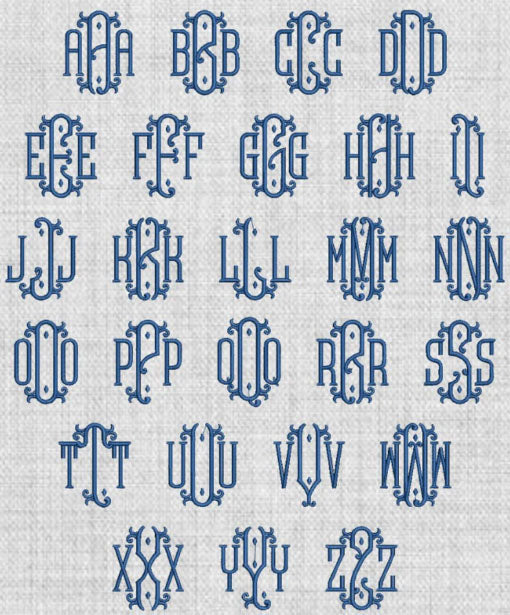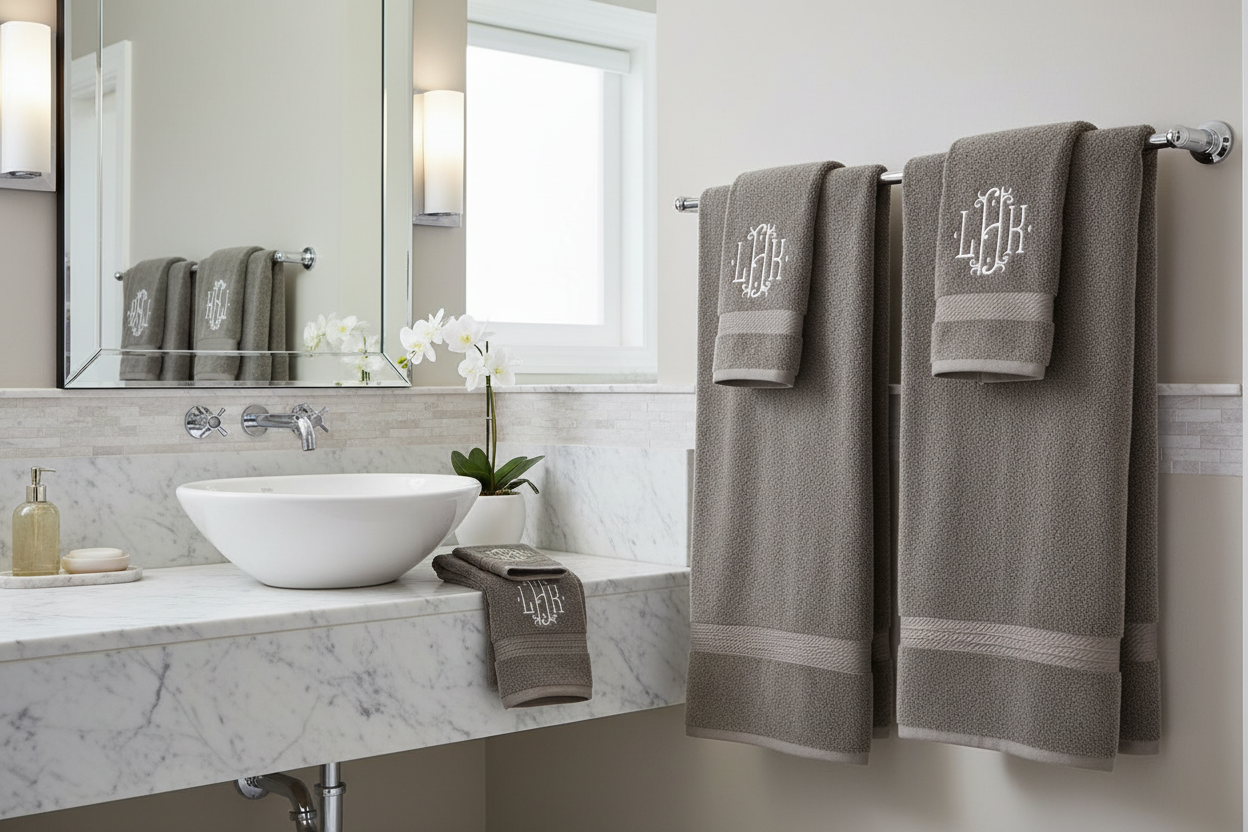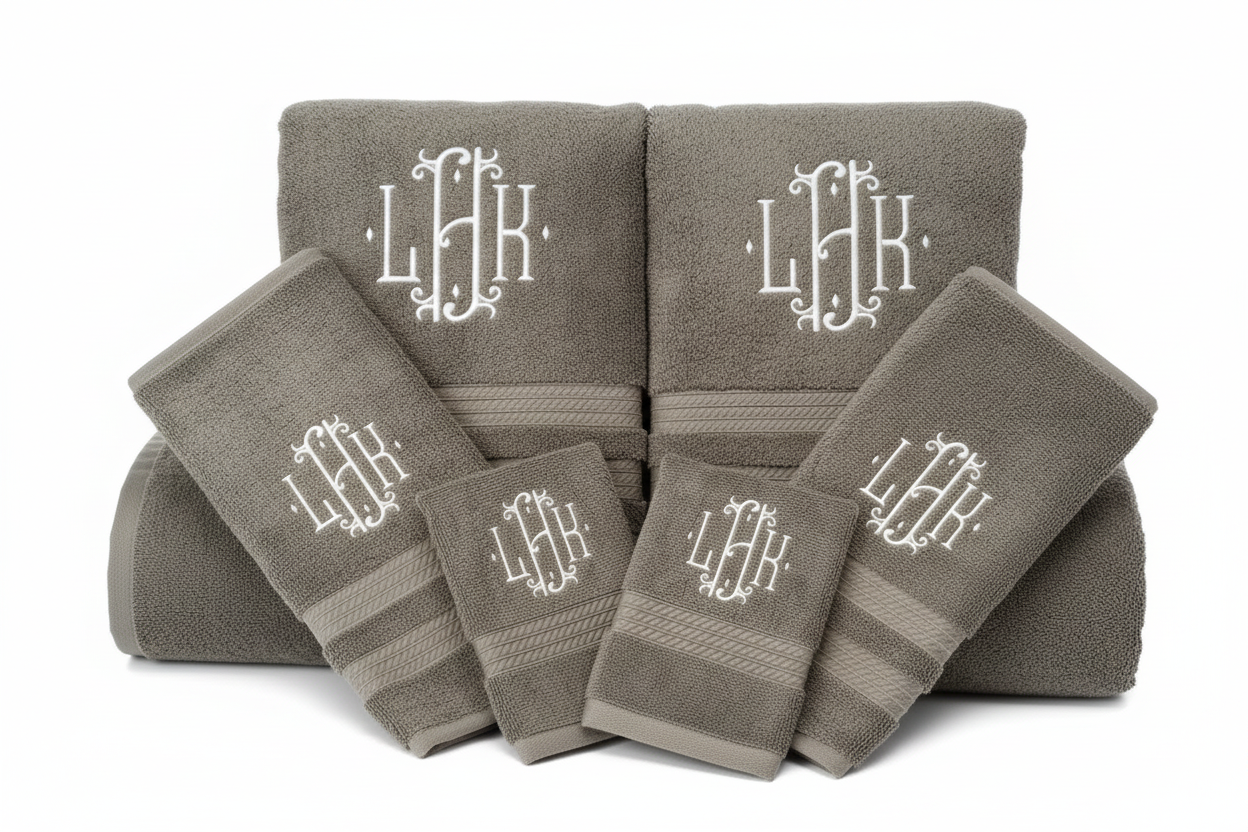
Elevate your embroidery projects with the Viking Monogram Font — a bold, elegant font designed for machine embroidery. Perfect for personalizing towels, apparel, bags, and more.